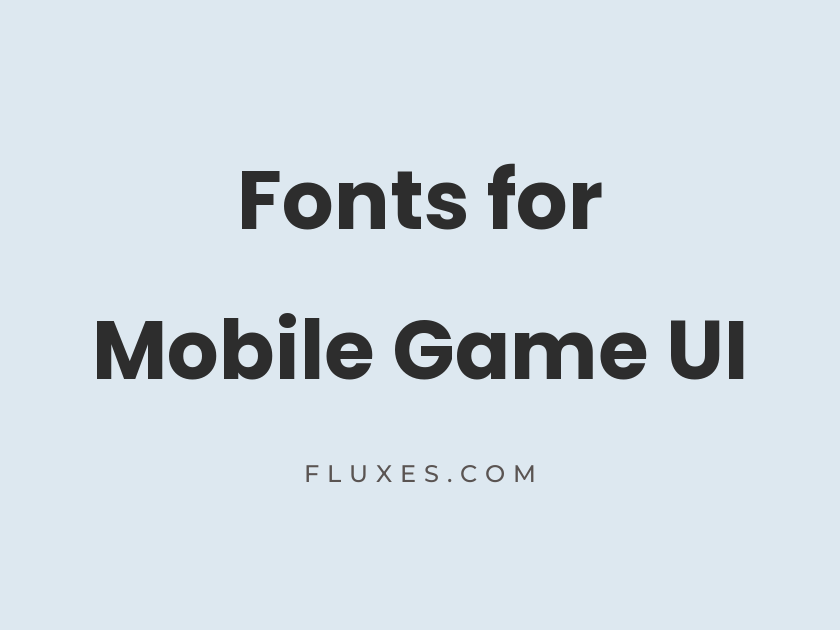
65 Best Fonts for Mobile Game UI
Mobile game UI lives or dies by typography choices made under brutal constraints: tiny screens, thumb-sized buttons, score counters that update every frame, and onboarding text that has to read clearly at a glance. The right typeface can sell a genre before a player even taps play, whether that’s the chunky friendliness of a match-three, the neon glow of a sci-fi shooter, or the parchment weight of a fantasy RPG. Free fonts for mobile game UI from Google Fonts cover all of that ground, and picking well means balancing personality against legibility at small sizes.
What follows is a working library organized roughly by role: dependable text and HUD fonts, bold display faces for logos and buttons, playful rounded options for casual and puzzle games, pixel and arcade styles for retro projects, futuristic faces for sci-fi interfaces, fantasy lettering for RPGs, a few horror specialists, and a couple of handwritten accents for flavor text.
Poppins has become something of a default in app and game UI for good reason: its geometric letterforms stay crisp at small sizes, and its wide weight range covers everything from body copy to bold call-to-action buttons.
It reads as friendly and modern without tipping into cartoonish territory, which makes it a safe anchor for HUD text, settings menus, and dialogue boxes across almost any genre.
Pair it with a louder display font for the game logo and let Poppins carry the everyday interface work.
Built specifically for screen interfaces, Inter has tight spacing and tall x-heights engineered for legibility on small displays. It is an excellent pick for stat panels, leaderboards, and settings screens where dense information needs to stay readable.
Barlow’s slightly condensed proportions squeeze more text into narrow UI panels without feeling cramped, which is handy on portrait-orientation phone screens. It has a neutral, athletic character that suits racing, sports, and fitness-themed games particularly well.
A touch more geometric and modern than Inter, Manrope brings a subtle warmth to interface text thanks to its slightly rounded terminals. It works well in minimalist puzzle and strategy games that want clean typography without feeling sterile.
Rubik’s rounded corners give it just enough personality to feel game-appropriate while remaining fully legible in body copy and menu labels. It sits comfortably between a purely functional UI font and something with more visual charm.
Low-key and versatile, DM Sans handles the unglamorous parts of game UI, tutorial text, settings toggles, credits screens, with quiet competence and none of the visual noise that fights for attention against gameplay art.
Sora has a slightly technical, engineered feel that suits strategy games, tower defense titles, and anything with a data-heavy interface. Its even spacing keeps numeric displays like timers and currency counters easy to scan mid-match.
Kanit
Kanit brings a Thai-designed geometric structure with a slightly compressed rhythm that reads as energetic and quick, a good match for arcade and racing UI that needs to feel fast even in its labels.
Montserrat’s geometric confidence makes it equally at home in a minimalist puzzle app or a mid-weight strategy game menu, and its enormous weight range means one family can cover headlines, buttons, and fine print alike.
Titan One is pure candy: fat, bouncy letterforms with a heavy outline that practically begs to sit on a big round button. It is built for casual and hyper-casual game logos, not for body text, where its bulk would overwhelm the screen.
Few free fonts nail the cheerful cartoon-marker look as well as Luckiest Guy, which is why it shows up constantly in casual game logos and celebratory “level up” screens. Keep it large and short; it was never meant for paragraphs.
Straight out of comic-book lettering, Bangers gives buttons and title screens an explosive, kinetic energy that suits action, brawler, and endless-runner games. Its slightly irregular baseline adds character at display sizes but can look busy if used for anything longer than a few words. It pairs naturally with a calm sans like Inter or Rubik for the surrounding interface.
Boogaloo has the same retro-cartoon energy as Bangers but with rounder, softer curves, making it a good fit for platformers and family-friendly game titles that want playfulness without quite so much shouting.
Originally designed for urban signage, Bungee’s blocky, ultra-bold letterforms translate surprisingly well to arcade-style game logos and achievement banners. It is a display-only font, best reserved for short bursts of text at large sizes.
Finally, check how each font handles numerals if your game relies on scores, timers, or currency counters. Tabular, evenly spaced digits prevent numbers from jittering as they update.
There is no single correct typeface for mobile game UI, only the right one for a given genre, mood, and screen size. Downloading a handful of these free Google Fonts and testing them directly inside a working prototype is the fastest way to see which personality actually fits the game being built.